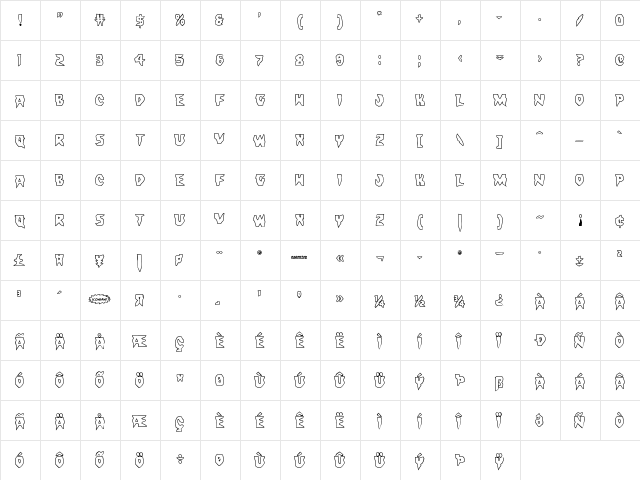
Count Suckula Outline Outline
Design Context for Count Suckula Outline Typeface
Count Suckula Outline brings ornamental detail and strong personality to headlines and identities, where visual impact matters more than quiet functionality.
Font Pairing: Pair with a clean neutral sans-serif for body copy to let Count Suckula Outline's character lead without overwhelming the composition.
Pro Tip: Treat Count Suckula Outline as the centrepiece of your typographic hierarchy. One strong heading set in a decorative face can carry an entire layout.